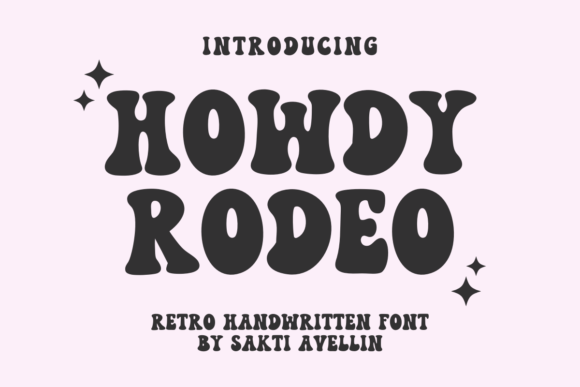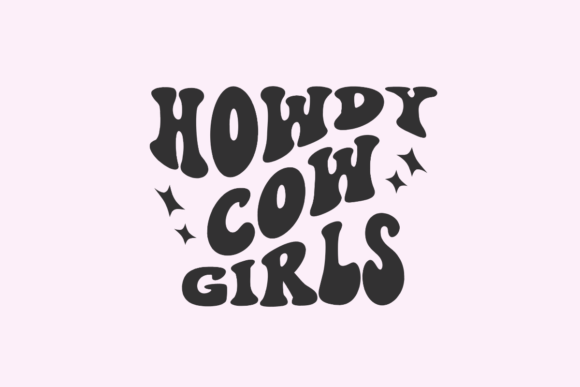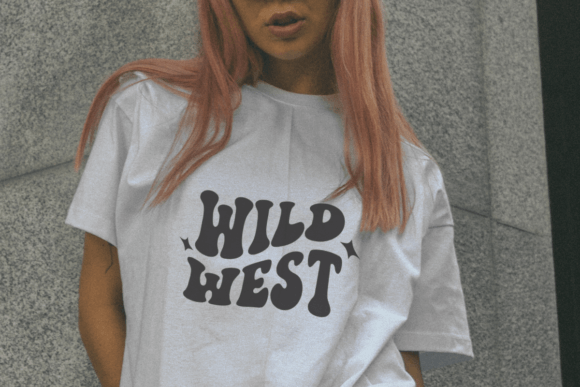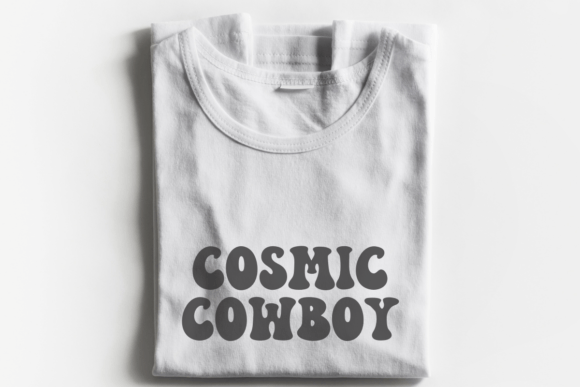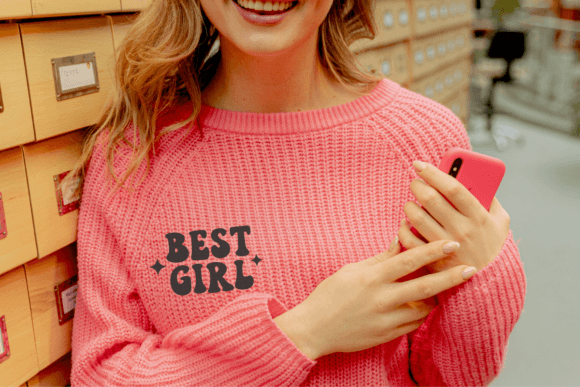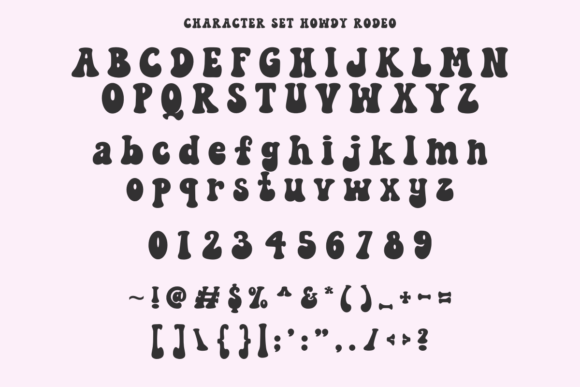
Howdy Rodeo Font
Howdy Rodeo, a versatile handmade retro font, designed with an eye for authenticity. Its engaging character makes it ideal for a range of creations, from crafting projects and distinct brand identities to mesmerizing apparel designs such as t-shirts and hoodies. This unique font can also elevate your drinkware designs like mugs, making every sip more enjoyable. With Howdy Rodeo, you can create captivating invitations that intrigue guests, powerful headlines that hold attention, eye-catching posters that resonate, and nostalgic retro quotes that stir the soul. Dive into its many uses and explore a world of possibilities with Howdy Rodeo!